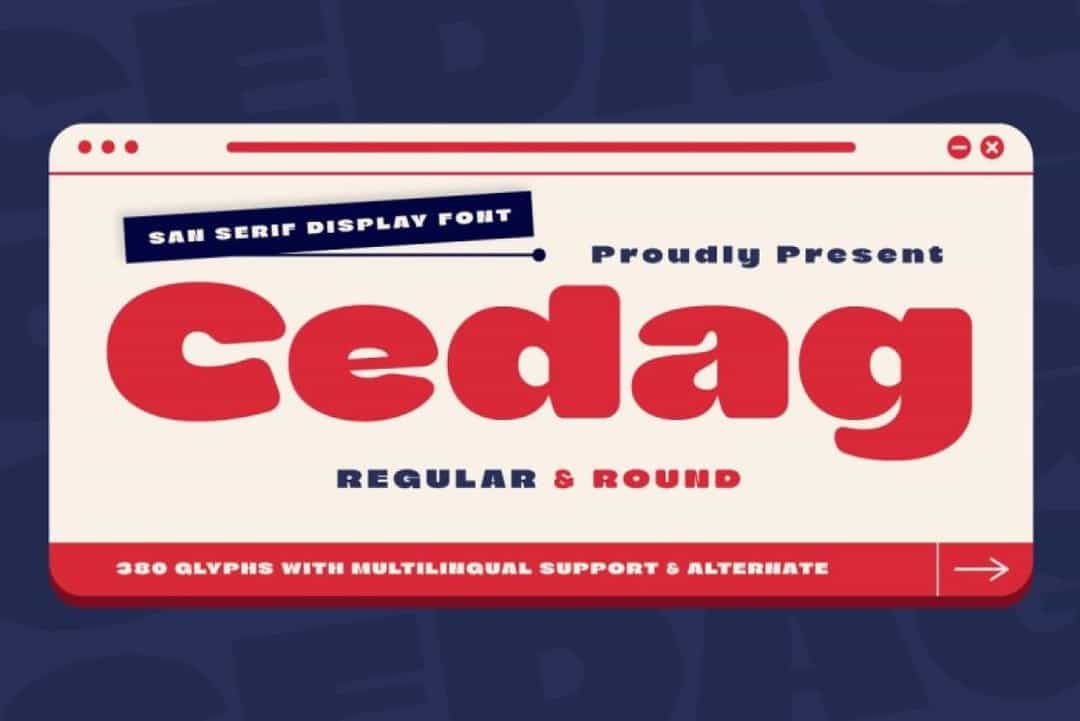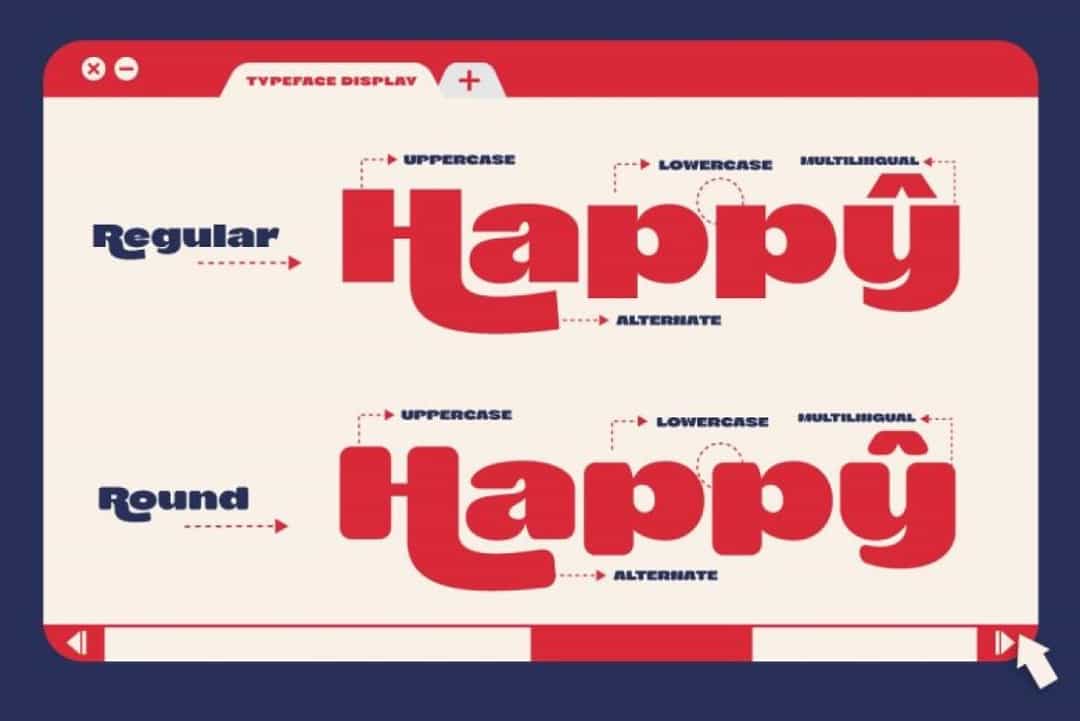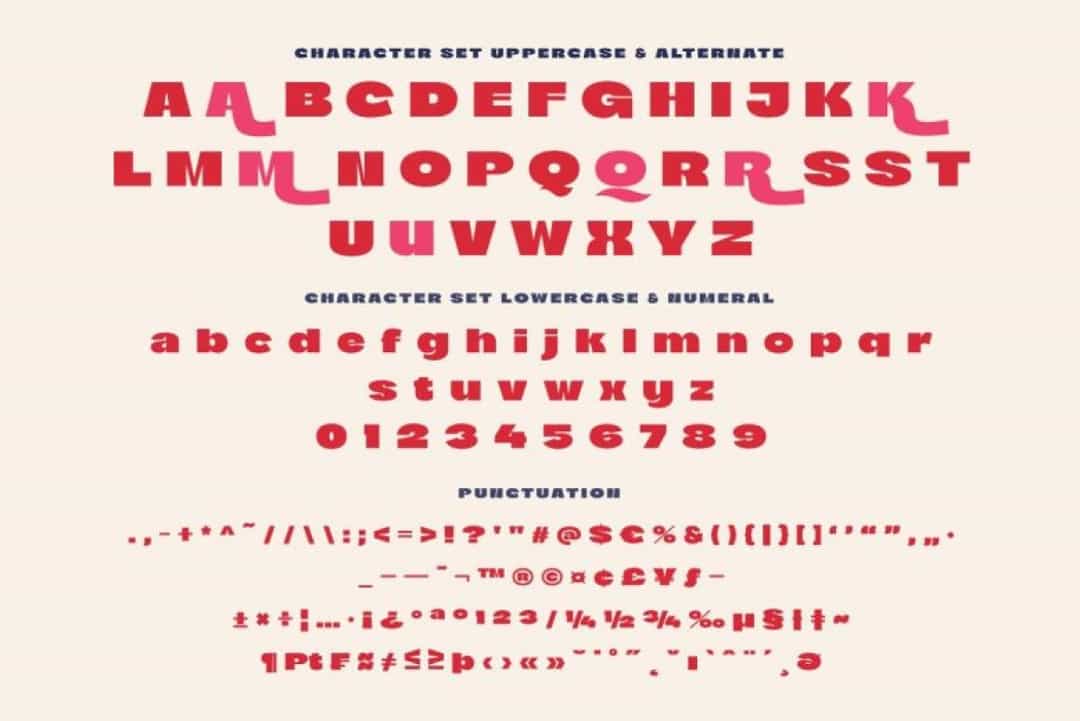
Cedag, our San Serif display font, exudes elegance and vitality. Available in two distinct families – regular and round – it provides a contemporary new twist to traditional look. Ideal for any type of project that demands elegance and stylishness, Cedag stands out.